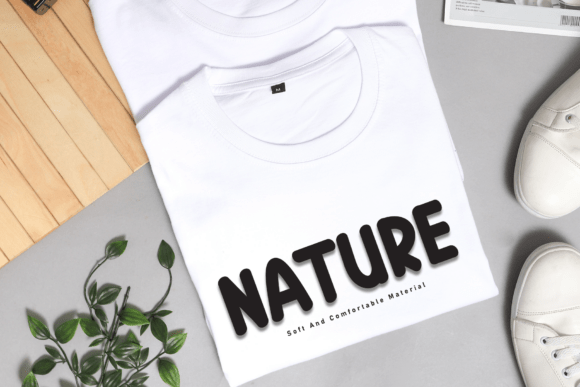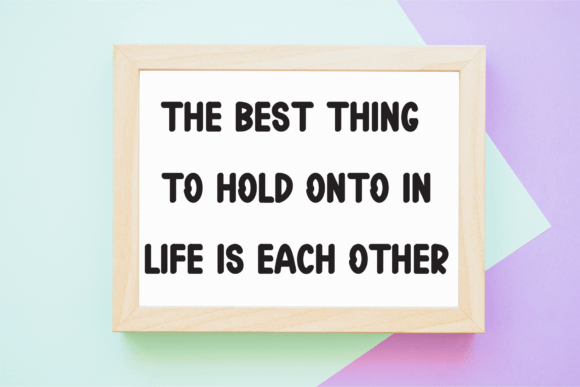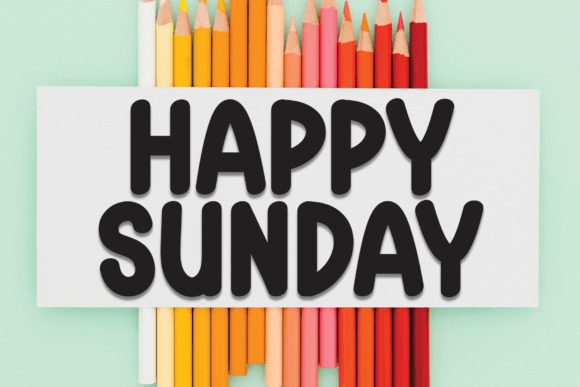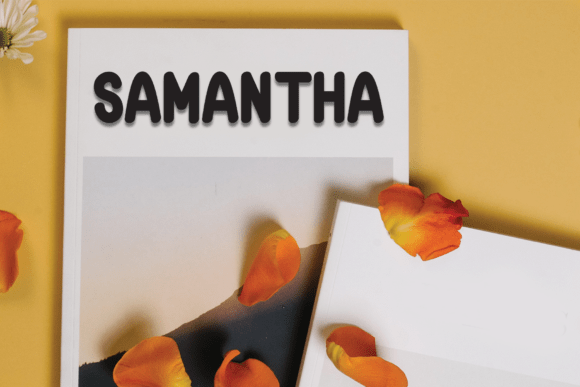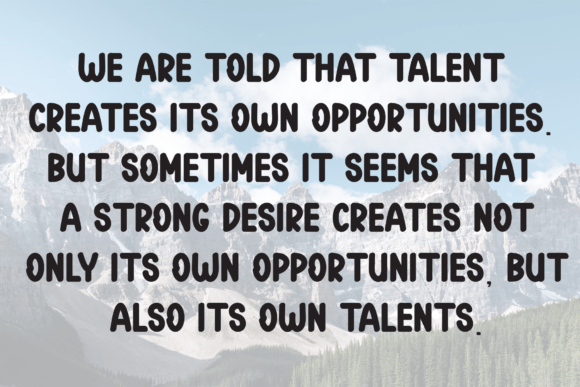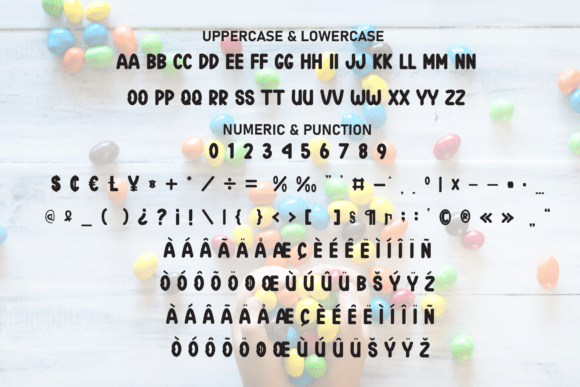
Candy Bubble Font: Add a Touch of Whimsy to Your Designs
Immerse yourself in the charming allure of a handwritten display font that mingles sweetness with friendliness. With a delightfully cute and fun aesthetic, the Candy Bubble Font is the perfect element to lend a touch of whimsy to your wedding invitations, cards, and other design projects. Whether you’re creating a heartwarming note or a playful design, this font adds an endearing and enjoyable touch to every project it graces.
Handwritten fonts have a unique ability to add a personal touch to any design project. They evoke a sense of warmth and friendliness, making them perfect for projects that require a human touch. The Candy Bubble Font is no exception. Its handwritten style is reminiscent of childhood memories, making it an excellent choice for designers and crafters looking to add a touch of nostalgia to their work.
Features of the Candy Bubble Font
The Candy Bubble Font boasts a range of features that make it an excellent addition to any design project. Some of its key features include:
- Cute and Fun Aesthetic: The font’s playful design makes it perfect for projects that require a lighthearted touch.
- Handwritten Style: The font’s handwritten style adds a personal touch to any design project.
- Whimsical Feel: The font’s whimsical feel makes it perfect for projects that require a touch of fantasy and imagination.
- Easy to Read: Despite its playful design, the font is easy to read, making it perfect for body text and headings.
Using the Candy Bubble Font in Your Designs
The Candy Bubble Font is a versatile font that can be used in a variety of design projects. Here are some ideas for using the font in your designs:
- Wedding Invitations: The font’s sweet and playful design makes it perfect for wedding invitations and other wedding-related design projects.
- Cards and Stationery: The font’s handwritten style and whimsical feel make it perfect for creating cards and stationery that require a personal touch.
- Playful Designs: The font’s playful design makes it perfect for projects that require a lighthearted touch, such as children’s party invitations and flyers.
- Branding and Packaging: The font’s unique design makes it perfect for branding and packaging projects that require a touch of personality.
Tips for Getting the Most Out of the Candy Bubble Font
Here are some tips for getting the most out of the Candy Bubble Font:
- Use it Sparingly: While the font is playful and fun, it can be overwhelming if used excessively. Use it sparingly to add a touch of whimsy to your designs.
- Pair it with Other Fonts: The font pairs well with other fonts, especially serif fonts. Experiment with different font combinations to find the perfect pairing.
- Experiment with Colors: The font’s playful design makes it perfect for experimenting with different colors and textures.
The Candy Bubble Font is a charming and playful font that adds a touch of whimsy to any design project. Its handwritten style and whimsical feel make it perfect for projects that require a personal touch. With its versatility and ease of use, the font is perfect for designers and crafters looking to add a touch of sweetness and friendliness to their work.